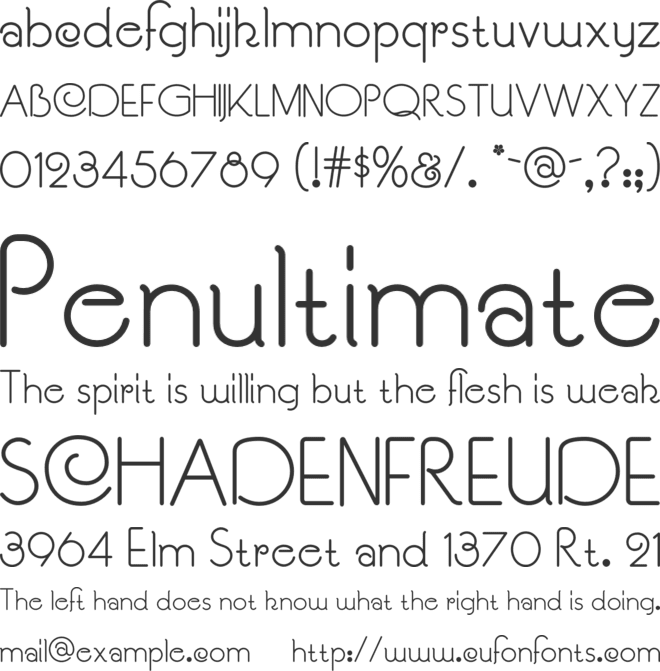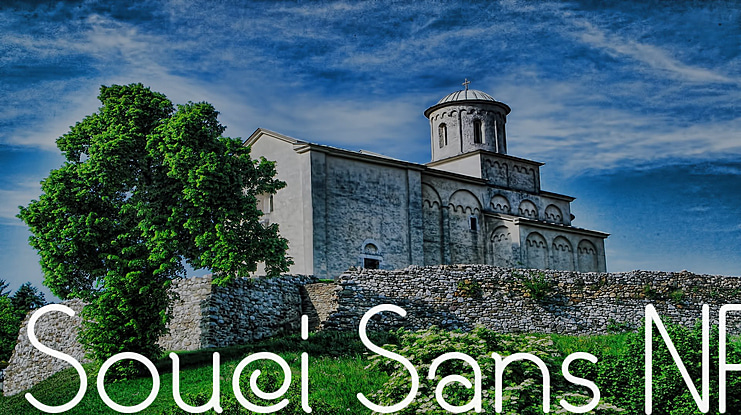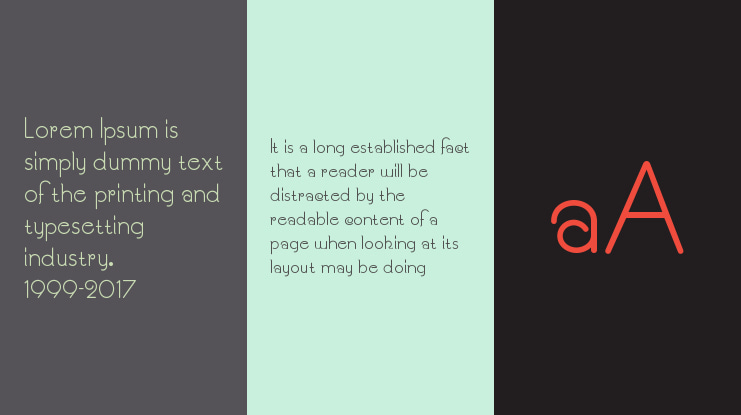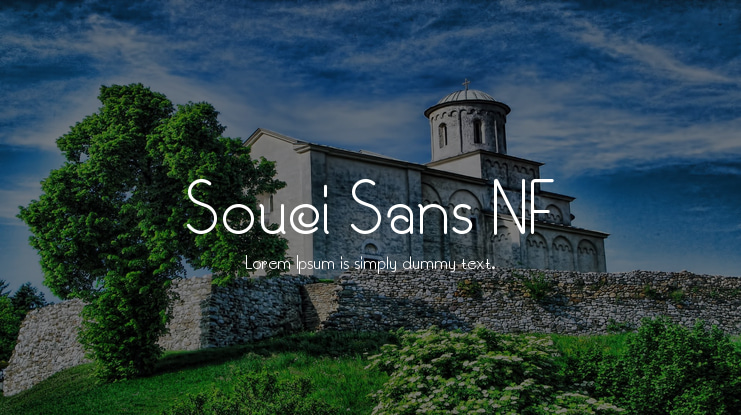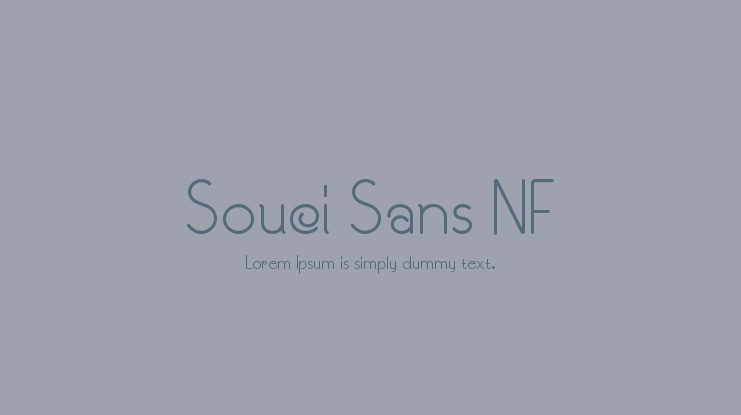
It appears that the type designers of the Art Deco era were long on design ideas but short on names. This font is based on yet another untitled doodling from that period, this time by Samuel Welo, circa 1930. The loops and swirls on this font are freewheeling, and it appears perfectly suitable for both formal and fun occasions. Reverse the order of the words in this fontâs name, and your have the French term for carefree.